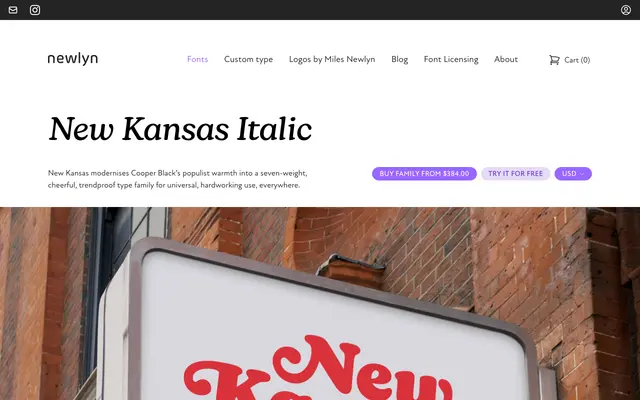
New Kansas Italic Swashes
Italic and swash extensions of New Kansas, a Cooper Black-derived family, offering seven weights of calligraphic flourish for display and editorial use.
These subfamilies extend New Kansas into italic, swash and extra-swash territory across seven weights from Thin to Black. The swash cuts draw on the calligraphic tradition behind Cooper Black, referencing Oswald Cooper's original swash drawings, while the extra-swash variants push the decorative flourishes further. Suited to editorial display, packaging and any context where warmth and period character are wanted without ironic distance.
Rooted in the Cooper Black tradition, New Kansas is a rounded, high-contrast display serif with a distinctly warm and populist character; the swash and extra-swash italic subfamilies place it firmly in expressive display territory.